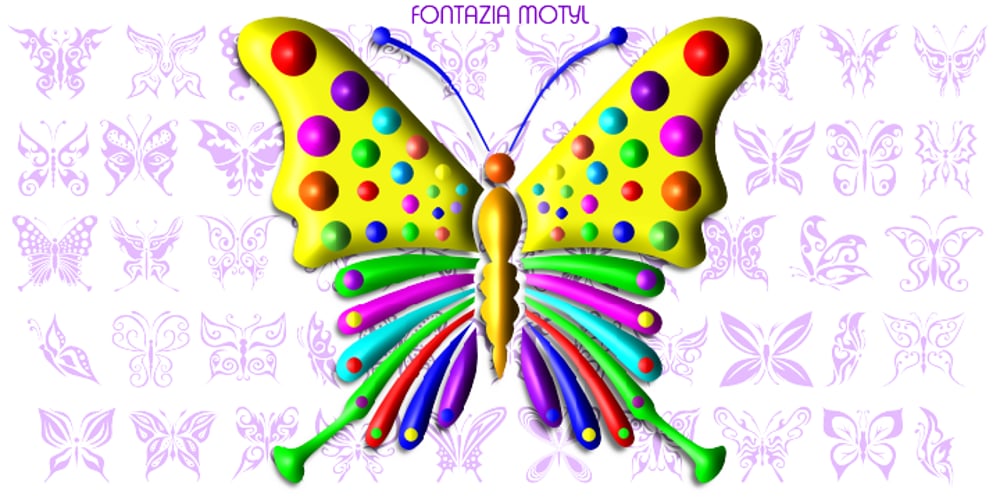
Fontazia Motyl
Fontazia Motyl font
Fontazia Motyl Font Family was designed by Denise Koehler and published by Deniart Systems. Fontazia Motyl contains 1 styles and family package options. Fontazia Motyl features 52 unique fantasy butterflies motifs. These whimsical glyphs are great for backgrounds, accents, greetings, and even tattoos. Add one or add them all – these dingbats are a sure thing for all your inspirations! For more butterfly fun, check out our butterfly inspired florals: Fontazia Papilio.